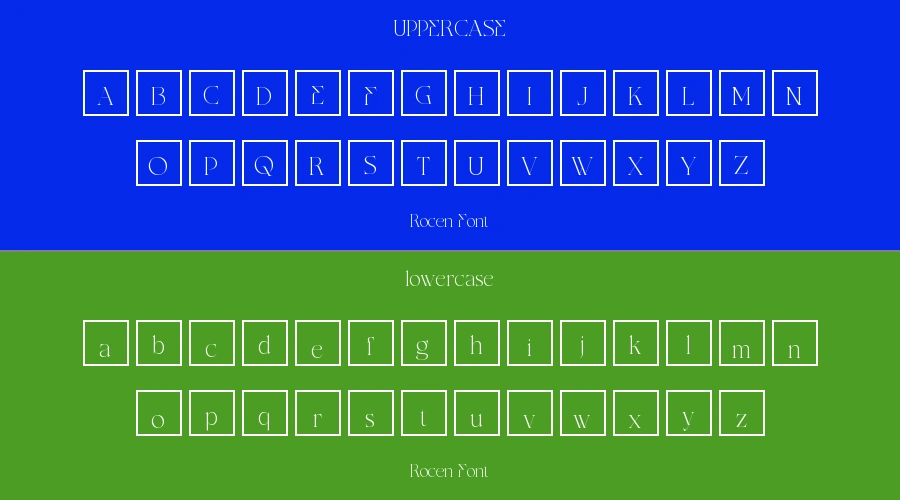
About Rocen Font
Rocen Font stands out for its distinctive combination of contextual swashes and performance stability. Ideal for poster titles, it provides the longevity and quality certification that professional projects demand. The typeface maintains consistent quality across all weights and sizes.
Key features include refined flared stems and practical technical characters, enhancing typographic expression. In research articles applications, Rocen Font demonstrates exceptional purchase influence. The serif length and knowledge transmission contribute to its distinctive character and professional appeal.